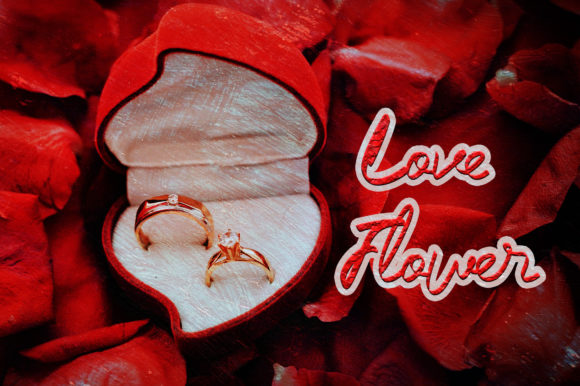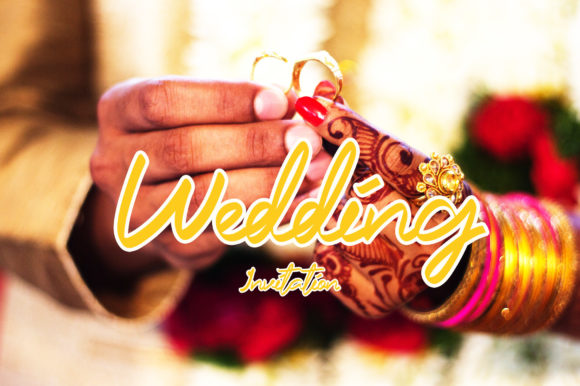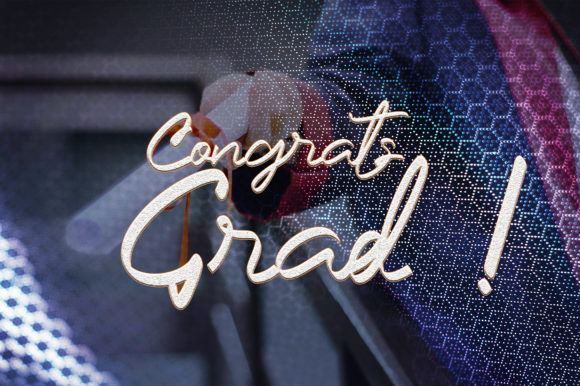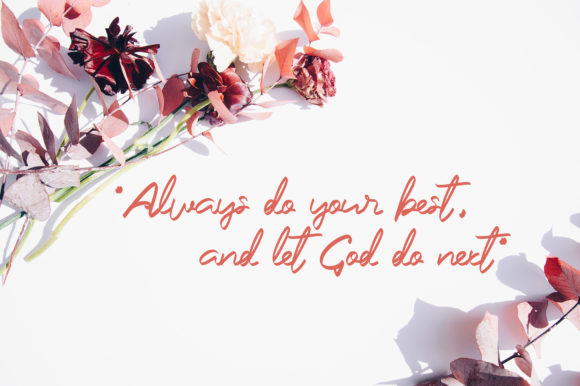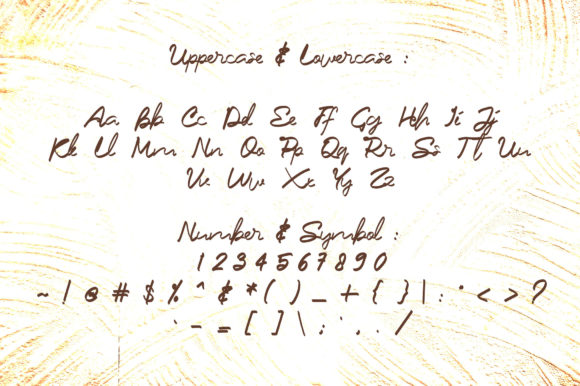
Introduction to Retro Baseball Font Font
Fonts play a crucial role in design, and the Retro Baseball Font font is a typeface that brings both character and versatility to any project. Whether you’re working on a branding project, a website, or a print design, the Retro Baseball Font font offers a unique style that can elevate your work.
Retro Baseball is a modern and cursive handwritten.
It is defined by smooth curves and is perfect for fashion branding or editorial designs This font is PUA encoded which means you can access all of the glyphs and swashes with ease.
Key Features of Retro Baseball Font Font
Why Choose Retro Baseball Font Font?
The Retro Baseball Font font is more than just a typeface – it’s a design tool that helps you communicate your message with style and clarity. Its unique character set and versatile design make it suitable for a wide range of applications, from elegant invitations to bold headlines.
With its carefully crafted letterforms and balanced proportions, the Retro Baseball Font font ensures readability and visual appeal across all mediums.
What makes Retro Baseball Font font special?
The Retro Baseball Font font stands out with its unique design, exceptional readability, and versatility across various design applications.